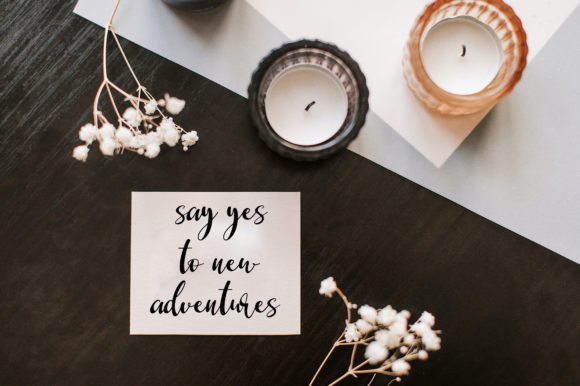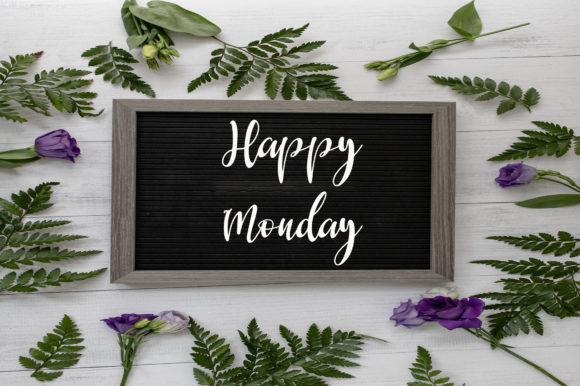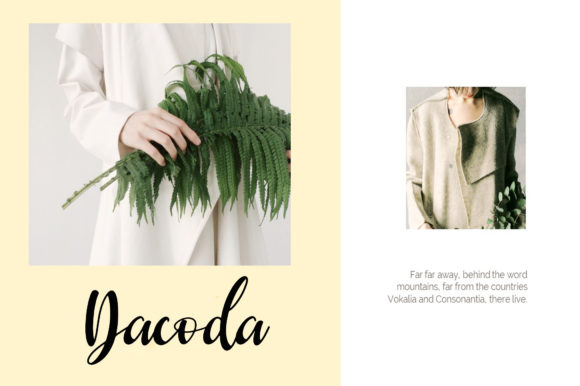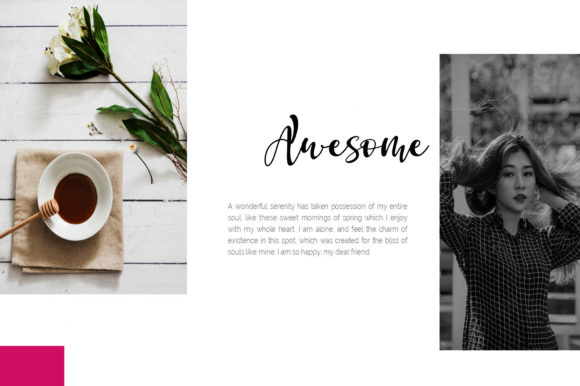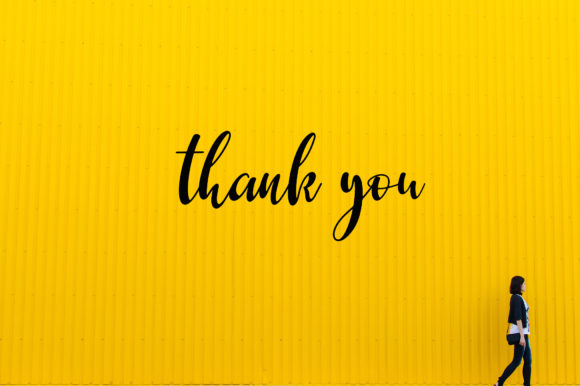
Introduction to Line End Font
Line End is a stunning script font, that embodies charm and elegance in every character.
Use it for projects that need lovely, romantic typography .
Key Features of Line End Font
Why Choose Line End Font?
Line End Font offers exceptional quality and versatility, making it a valuable addition to your design toolkit. Whether you’re creating for personal projects or commercial use, Line End Font delivers professional results.